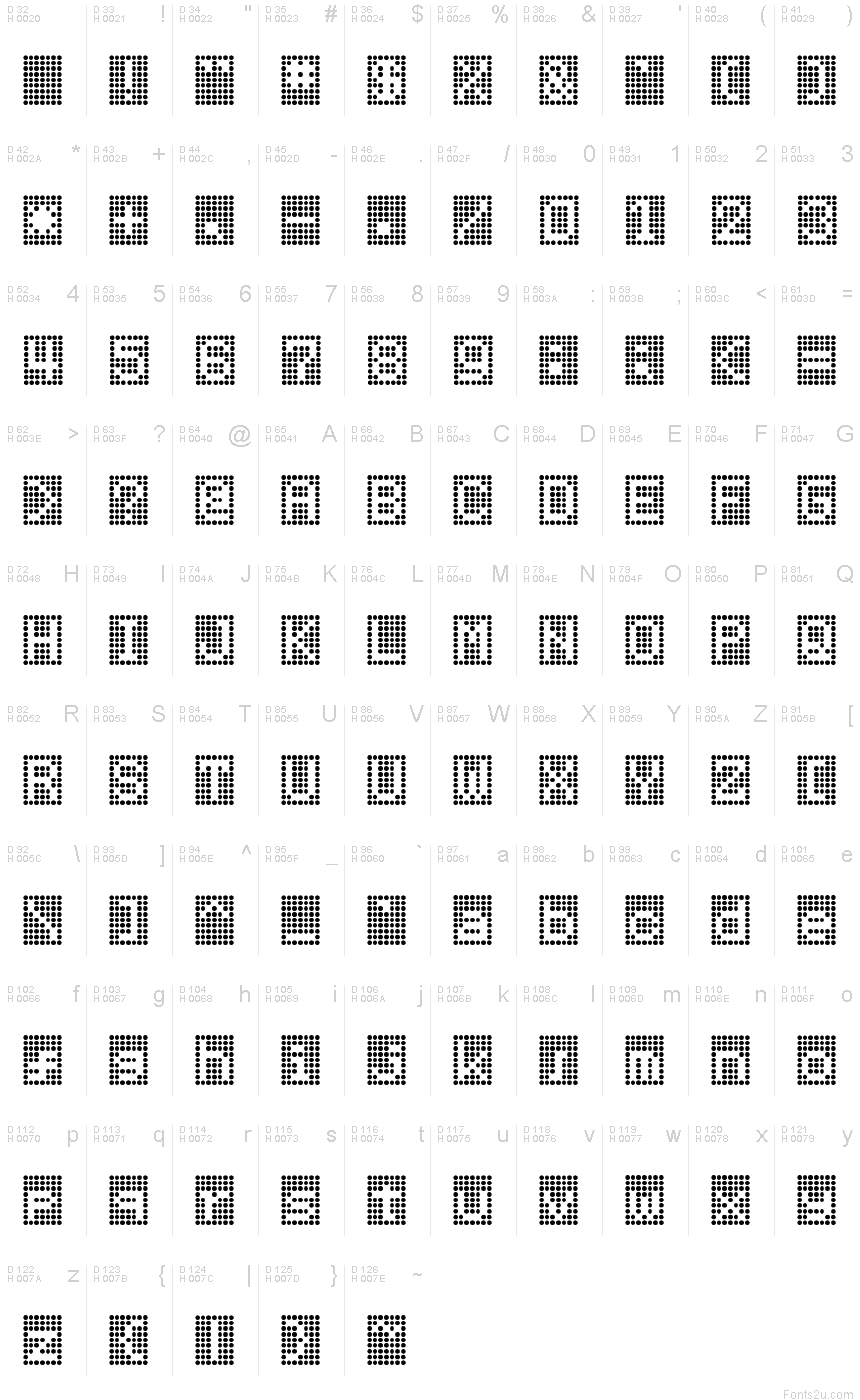
HNrumine
HNrumine font by Psy Zo Lab is a free digital display typeface that turns a tight grid of inky black dots into bold, glowing letterforms. Each character is carved out of the dot field like negative space on an old LED sign, giving your text a pulsing, low‑res energy that feels both retro and strangely futuristic. The uniform circular dots create a strong texture, especially at larger sizes.
Using HNrumine, headlines instantly read like they’re beaming from a scoreboard or synthwave stage screen. This free font shines on event posters, club flyers, techno or chiptune album art, experimental branding, game titles, and motion graphics. For readability, pair it with a clean geometric sans set smaller underneath, letting HNrumine handle the loud, attention‑grabbing moments.